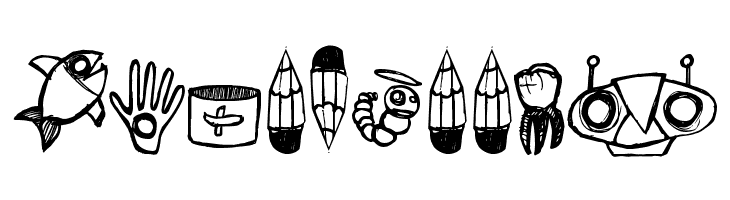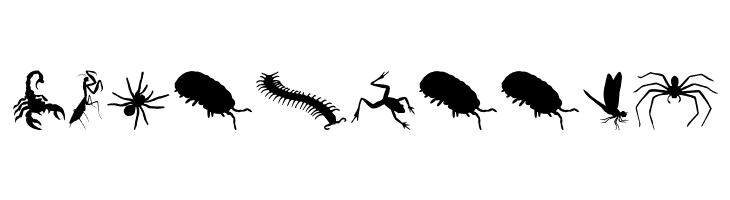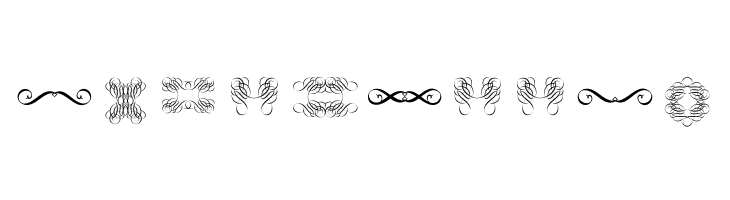
Animal silhouette pictorial display font.
A decorative dingbat font with jungle-themed silhouettes on popsicle sticks.
Illustrative font featuring detailed bug drawings as characters.
Ornamental dingbat font with intricate, symmetrical motifs.
A whimsical, decorative font with nature-inspired illustrations and a playful, hand-drawn style.
Whimsical hand-drawn doodle extras with a playful, sketchy style.
A decorative font with unique animal silhouettes for each character.
A pictorial font using silhouettes of bugs, reptiles, and small animals for each character.